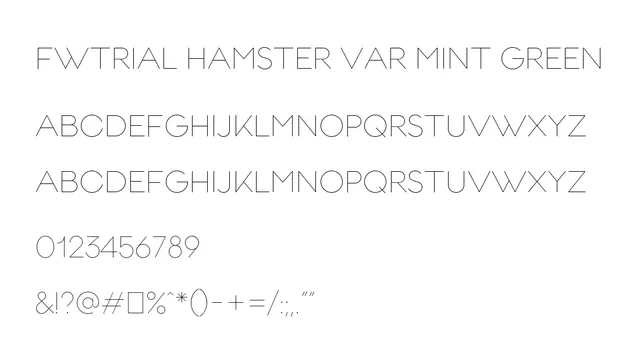
FwTRIAL Hamster VAR Mint Green
Ultra-thin geometric sans-serif with elegant minimalism and exceptional lightness, perfect for contemporary luxury and high-end branding.
Ideal for premium fashion and lifestyle brands needing distinctive, elegant headlines. The exceptional thinness demands careful sizing for legibility but creates unmatched sophistication in larger formats. Works beautifully in luxury editorial layouts and high-end digital interfaces.
Pairs elegantly with a humanist serif like Garamond or a geometric sans like DM Sans for hierarchy and contrast.